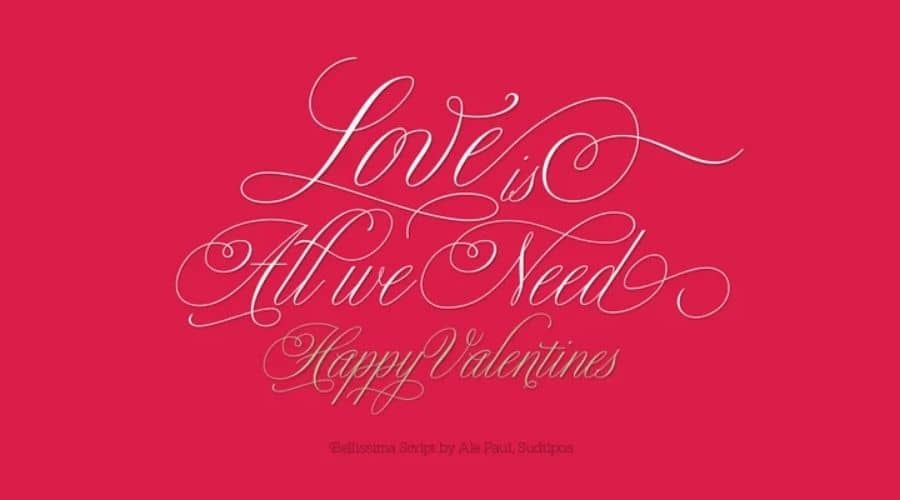
Bellissima Script Font
Bellissima Font is a new typeface. This is a beautiful handwritten and Script font. A semibold handwriting style was used to create this typeface. Bellissima Script Pro is the font family for this Font. Regular is the Font’s subfamily designation. Bellissima Script Pro is the Font’s unique identification. Bellissima Script Pro is the full font name. Version 1.000 of this Font is currently available. BellissimaScriptPro is the Postscript font name for this Font. Ale Paul is the creator and designer of this. On May 20, 2019, the Font was made public.
Bellissima started from a completely separate thread than Burgues and Compendium, although being in the same style and spirit. Many ligatures, numerous ends and swashed connections, and hundreds of capital and lowercase alternates are among the Font’s features. The lovely Script and Handwritten font is available in a variety of Latin languages. Bellissima exudes an exuberant spirit that transcends its origins. It’s designed for today’s modern appreciation of old crafty things like stationery and letterpress, where its roots let it shine brightly. Before installing the fonts, you must first extract them from the ZIP or RAR file, then: Windows 10/8/7 Install the Font by right-clicking on it. OS X (Macintosh Operating System): Double-click the font file to install it. Select “Install font” from the drop-down menu
The Script handwritten font is perfect for personalizing and embellishing any project. Combine it with various fonts to give your project a unique look. The Font is perfect for branding, weddings, greeting cards, business cards, packaging, flyers, logos, pictures, books, packaging, posters, invitations, and more. On every type of wallpaper, the font looks fantastic. The font will look great on greeting cards as well.